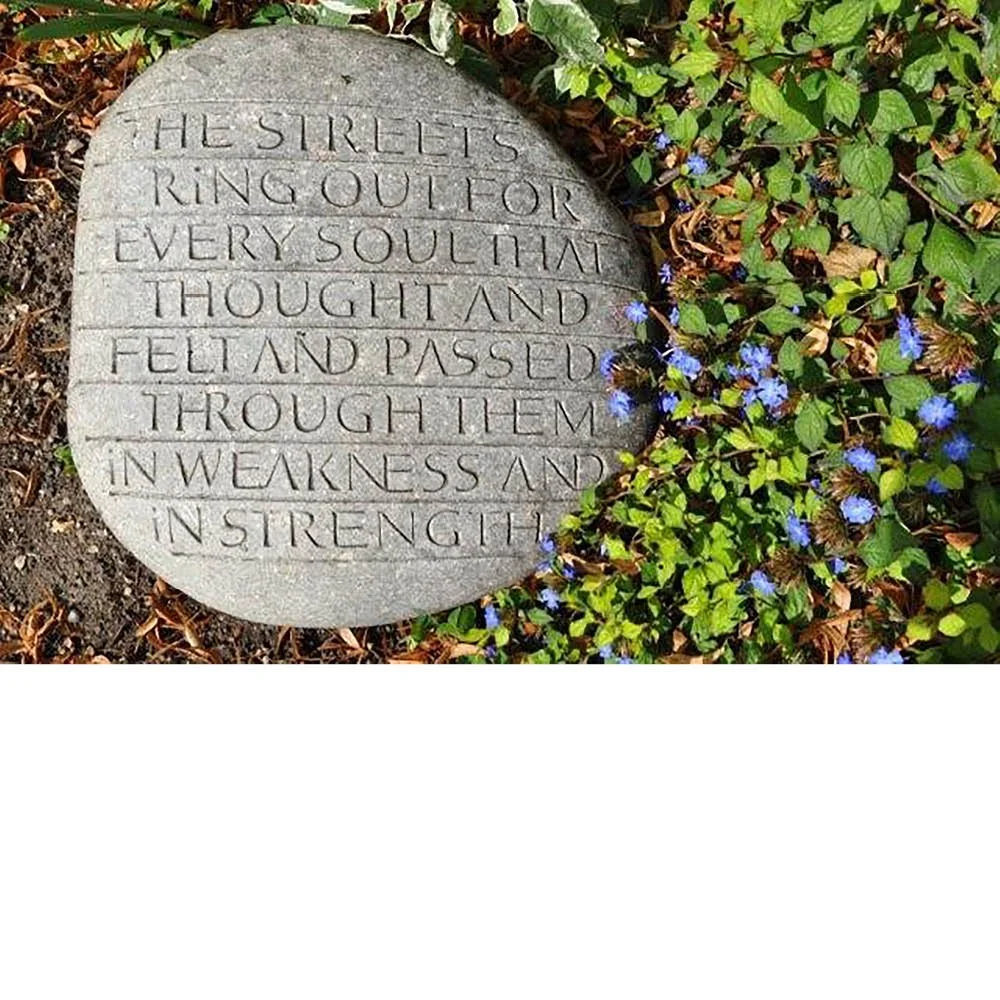
Pebble for Nicholas Heiney by
John das Gupta
Porphyry
The collected poetry and journals of Nicholas Heiney can be found in ‘The Silence at the Song’s End’. The book was compiled by his parents and former tutor at Oxford, as a testament to Nicholas’s unique life, talent and sensibility.
‘I carved the ‘pebble’ in porphyry, a material with timeless appeal, that came from an Italian riverbed. It looks as if it has been transformed by the passage of time into the familiar pebble shape. Nicholas’s words are deeply cut into the polished curve.’